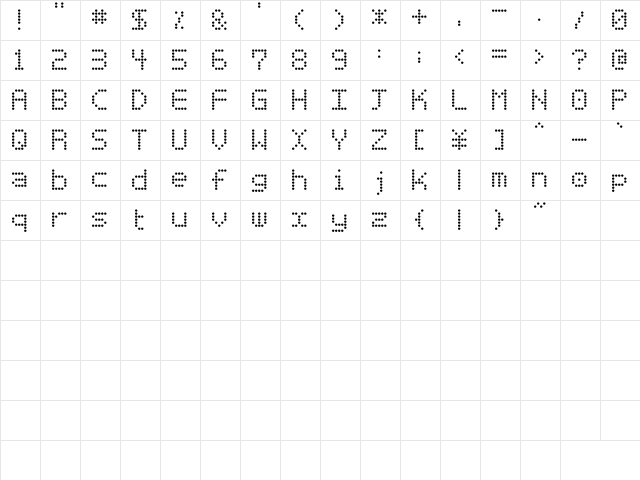
Basicdots Regular
Design Context for Basicdots Typeface
Basicdots is rooted in pixel-grid construction, making it a natural fit for game UI, retro computing aesthetics, and digital nostalgia projects.
Well-suited to indie game interfaces, retro computing aesthetics, and pixel art-adjacent design work.
Pro Tip: Use Basicdots at sizes that align with its pixel grid for the sharpest rendering — scaling to non-integer multiples can introduce unwanted blur.